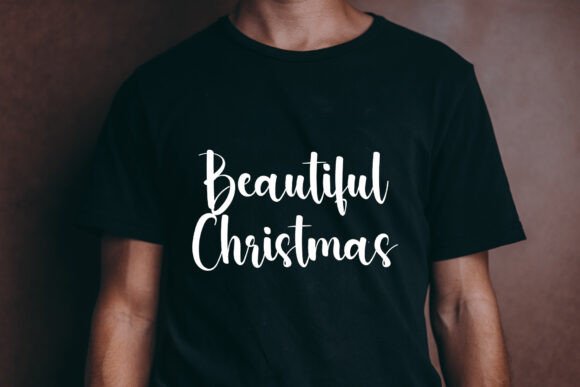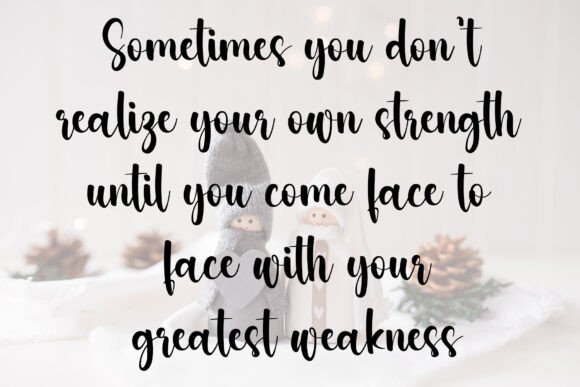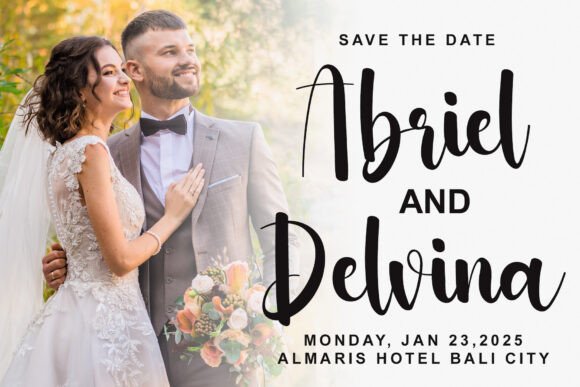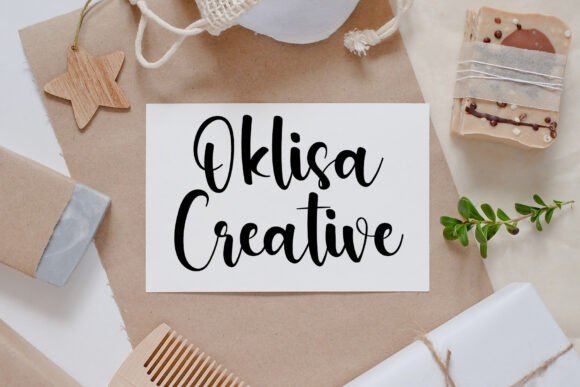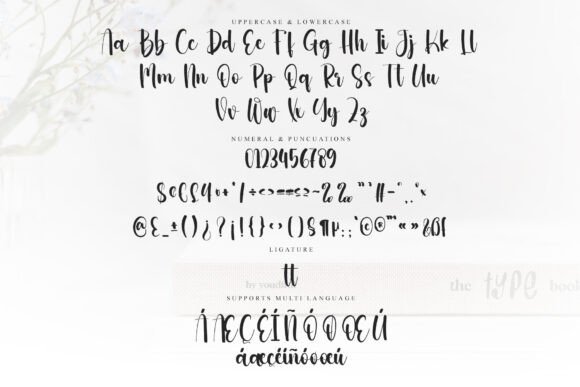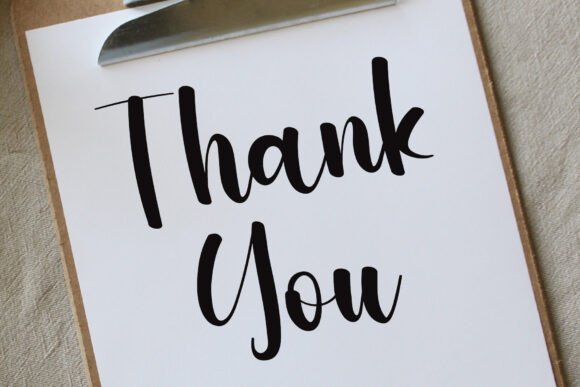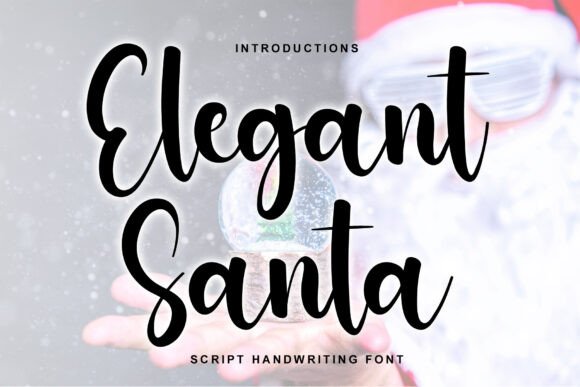
Elegant Santa Font: The Perfect Choice for Your Celebratory Designs
Are you looking for a font that adds a touch of elegance and whimsy to your designs? Look no further than the Elegant Santa font! This characterful and cute handwritten font is perfect for creating beautiful wedding invitations, cards, and other designs that require a soft, characterful touch.
What Makes Elegant Santa Font So Special?
Elegant Santa font is a unique and versatile font that is specifically designed to add a touch of magic to your designs. With its elegant and cursive script, this font is perfect for creating beautiful and eye-catching designs that will leave a lasting impression. Whether you’re designing wedding invitations, birthday cards, or other celebratory materials, Elegant Santa font is the perfect choice.
Key Features of Elegant Santa Font
- Characterful and Cute Design: Elegant Santa font has a unique and adorable design that adds a touch of personality to your designs.
- PUA Encoded: This font is PUA encoded, which means you can easily access all the glyphs and ligatures, making it easy to use and customize.
- Soft and Elegant Touch: Elegant Santa font has a soft and elegant touch that makes it perfect for creating beautiful and sophisticated designs.
- Perfect for Celebratory Designs: This font is specifically designed for celebratory designs, making it perfect for wedding invitations, birthday cards, and other special occasions.
Why Designers and Crafters Love Elegant Santa Font
Elegant Santa font has become a favorite among designers and crafters due to its unique and versatile design. Here are a few reasons why:
- Ease of Use: With its PUA encoding, Elegant Santa font is easy to use and customize, making it perfect for designers and crafters of all skill levels.
- High-Quality Design: This font has a high-quality design that is sure to impress, making it perfect for professional designers and crafters.
- Versatility: Elegant Santa font can be used for a wide range of designs, from wedding invitations to birthday cards, making it a great addition to any designer’s or crafter’s toolkit.
Elegant Santa font is a unique and versatile font that is perfect for designers and crafters looking to add a touch of elegance and whimsy to their designs. With its characterful and cute design, PUA encoding, and soft and elegant touch, this font is sure to become a favorite among designers and crafters. Whether you’re designing wedding invitations, birthday cards, or other celebratory materials, Elegant Santa font is the perfect choice.